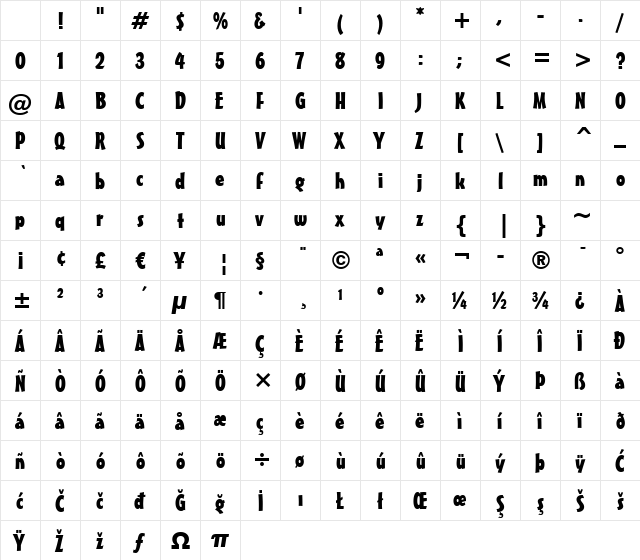
Complete MisterEarl Bd BT Bold glyph index. Displaying only characters natively supported by MisterEarl Bd BT Bold font.
MisterEarl Bd BT is a composed and adaptable typeface that performs quietly and consistently across a wide range of design contexts. Its bold stroke weight gives it real presence on the page.